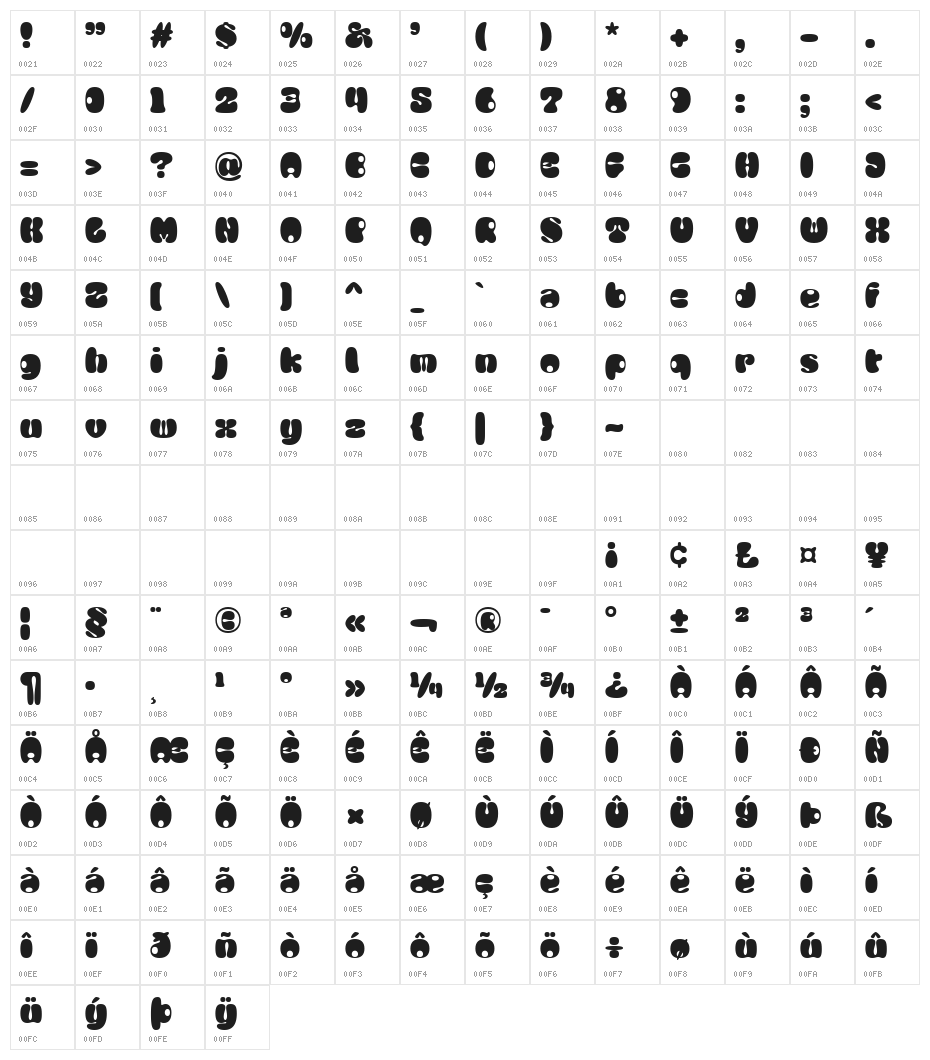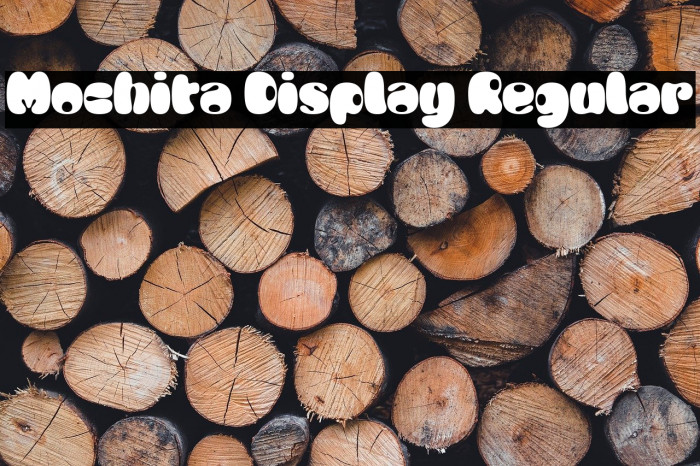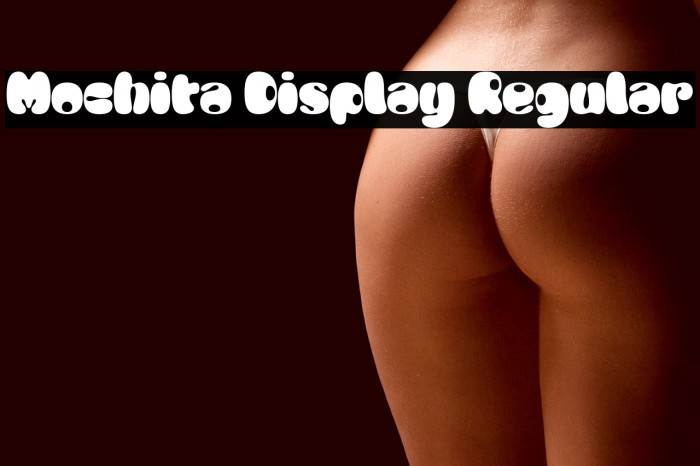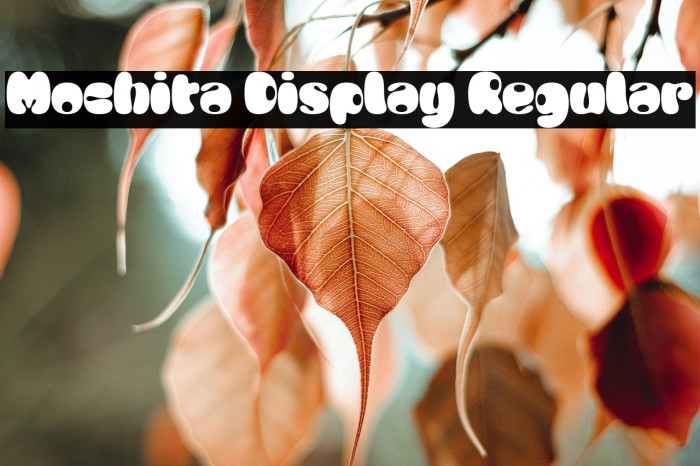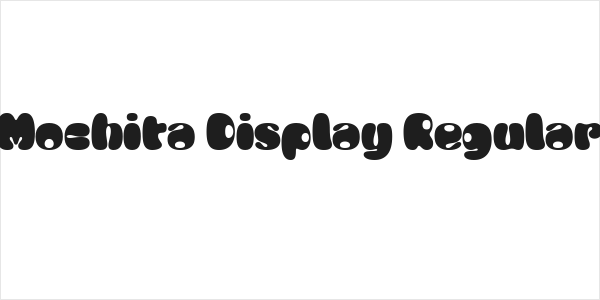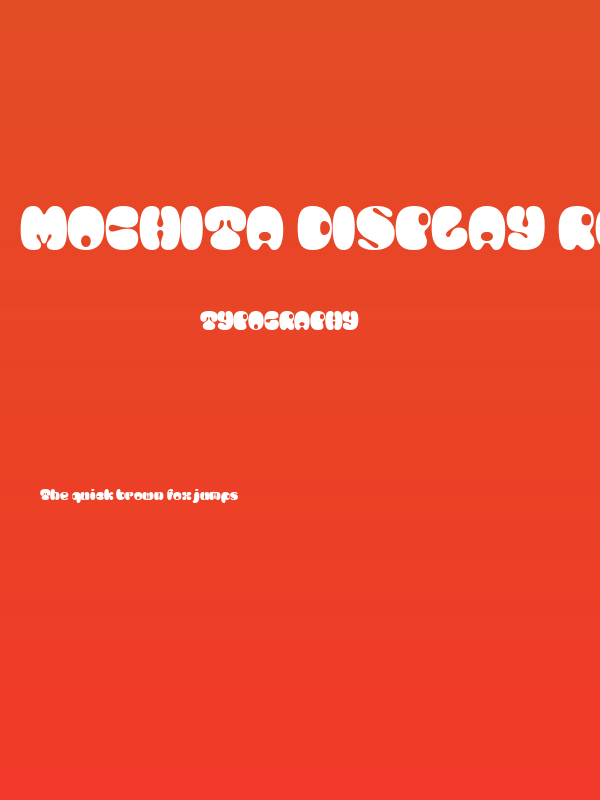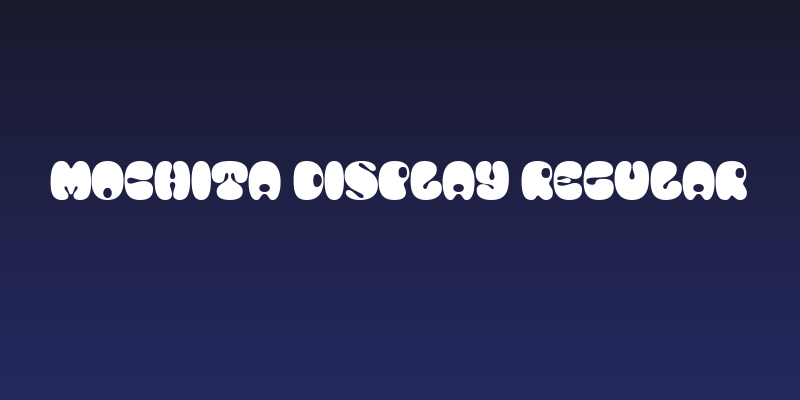
Mochita Display Regular Font
Mochita Display Regular Description
This font features a bold and playful design with rounded, bubble-like characters. The letters are thick and have a whimsical appearance, making them stand out with a unique, eye-catching style. The characters are closely spaced, contributing to a compact and cohesive look. The font's high contrast between the thick strokes and the negative space within the letters adds to its dynamic and lively feel. It is well-suited for creative and informal applications, where a fun and engaging visual impact is desired.